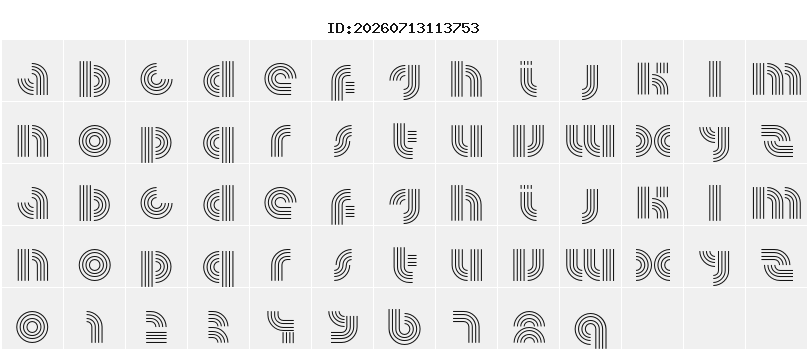
Radfahren Preview
• Font Name: Radfahren
• Full Font Name: Radfahren-Lower
• Designer: Stadium Creative Limited
• Description: Radfahren Lower is a font designed by Stadium Creative Limited in 2010.
About Radfahren.otf
Radfahren.otf is a modern, elegant sans-serif font designed for ultimate readability and visual harmony. Perfect for branding, headlines, web design, and print materials.